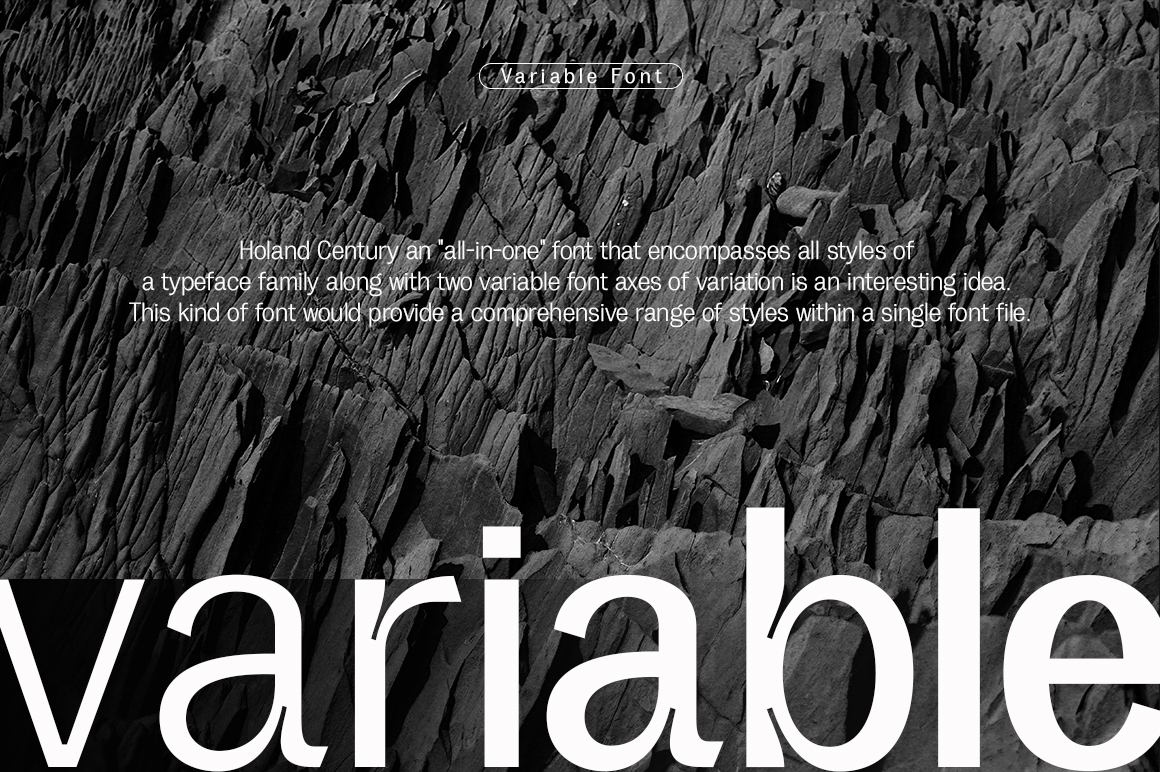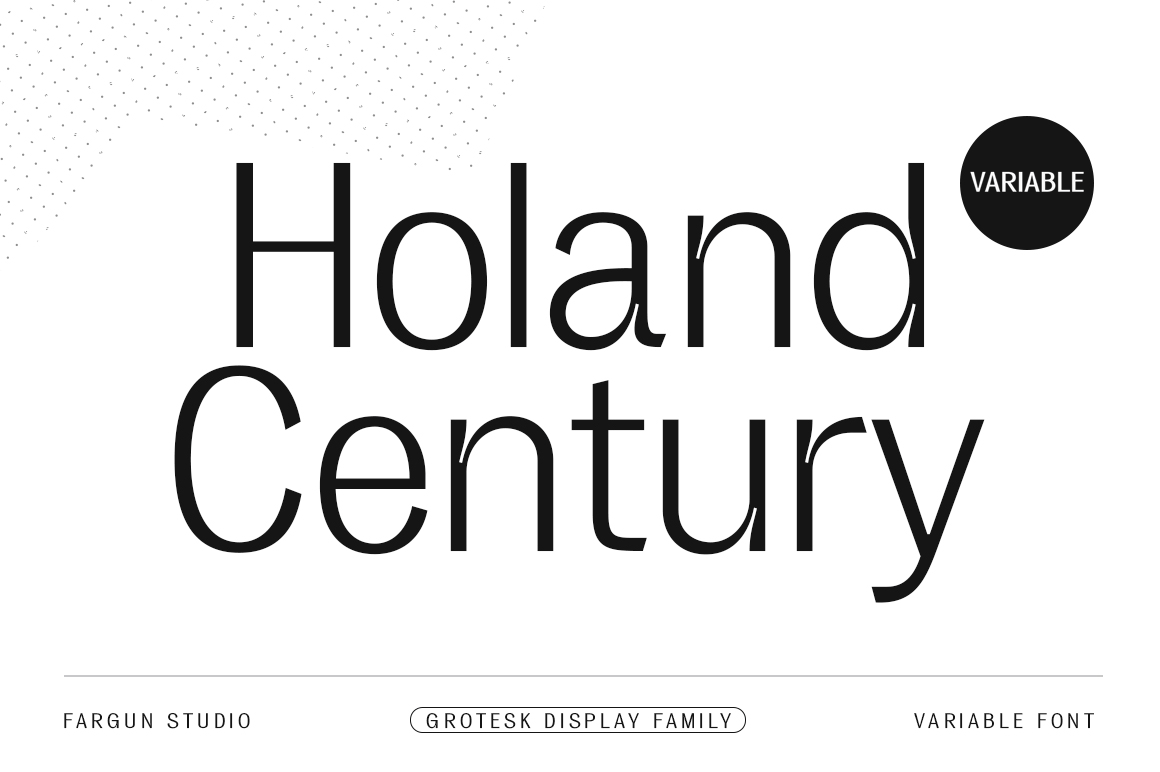
Holand Century Variable
About Holand Century Variable
Holand Century is classified as a contemporary display grotesque font. It features sharp and dynamic strokes, a strong contrast between thick and thin lines, and delicate pointed grotesque elements. Its extensive set of styles, versatile usage, and support…